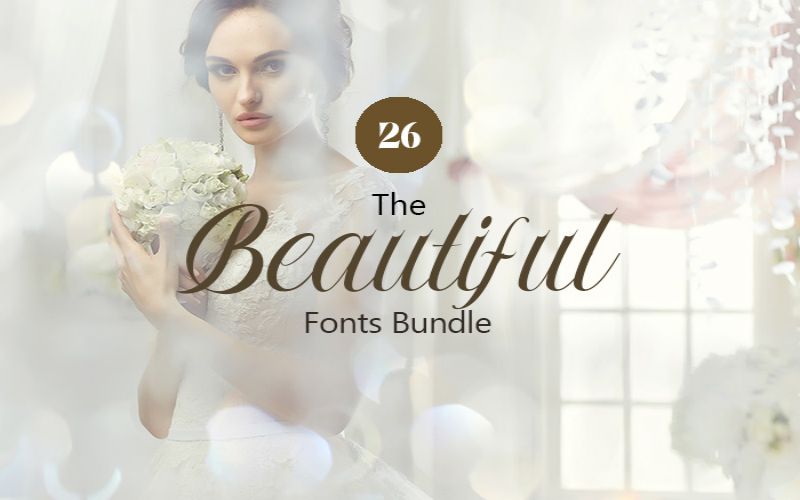
The Beautiful Fonts Bundle
26 beautiful, ready-to-use fonts — a versatile collection for branding, print, web mockups, packaging, invitations, social graphics, and more. This bundle mixes classic elegance with playful, modern character, giving you a wide selection for every project.
- 26 high-quality fonts included
- Styles range from classically elegant to modern and quirky
Featured fonts
A few standout fonts in the bundle:
- Fantonello — wide and unique
- Franz — charming and refined
- Fresh Juice — clean, fresh, and very popular
- Good Jacket, Gustav, Inkscapade
- Kapow — bold, energetic display
- Klangdam — attention-grabbing and bold
- Laydon — relaxed, laidback character
- Rolo — quirky and fun
- Wilde Side — adventurous and bold
- Wuggle — cute and friendly
- Tall Marker — handcrafted, marker-style favorite
- Skinny — precisely as named: thin and elegant
- Robotika — geeky, tech-inspired
(These are highlights — the full bundle contains 26 fonts.)